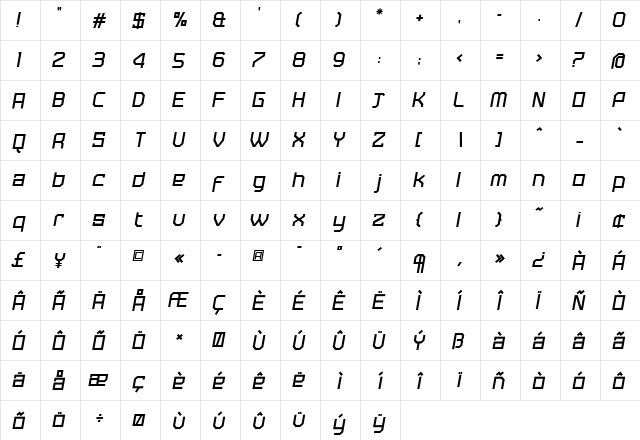
Tremble Regular Italic
Design Context for Tremble Typeface
Tremble is a composed and adaptable typeface that performs quietly and consistently across a wide range of design contexts. Its italic angle brings a sense of urgency and motion to the letterforms.
Pro Tip: Use Tremble for emphasis, pull quotes, and subheadings where its slanted energy can add rhythm to the layout.